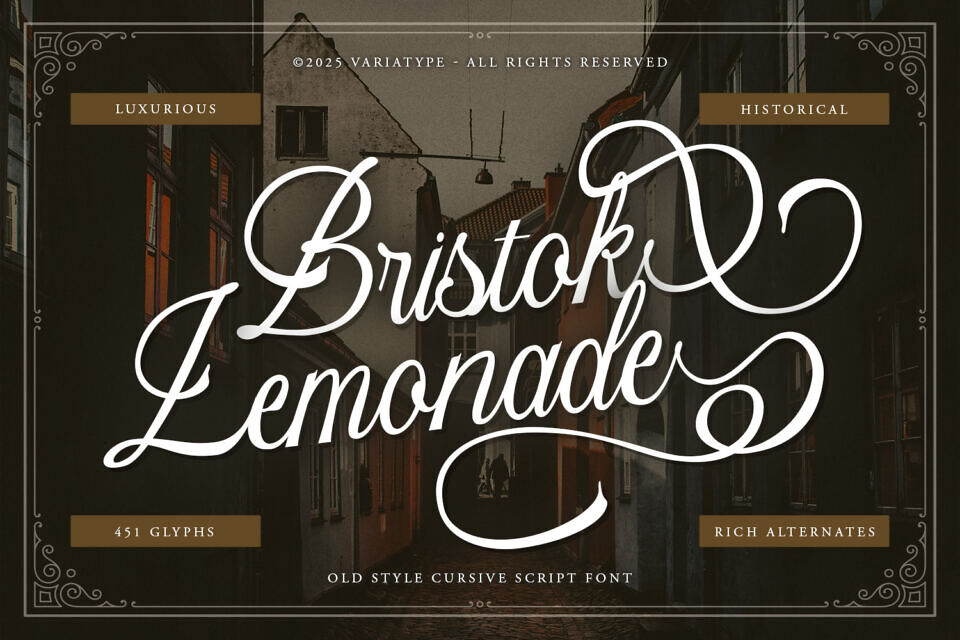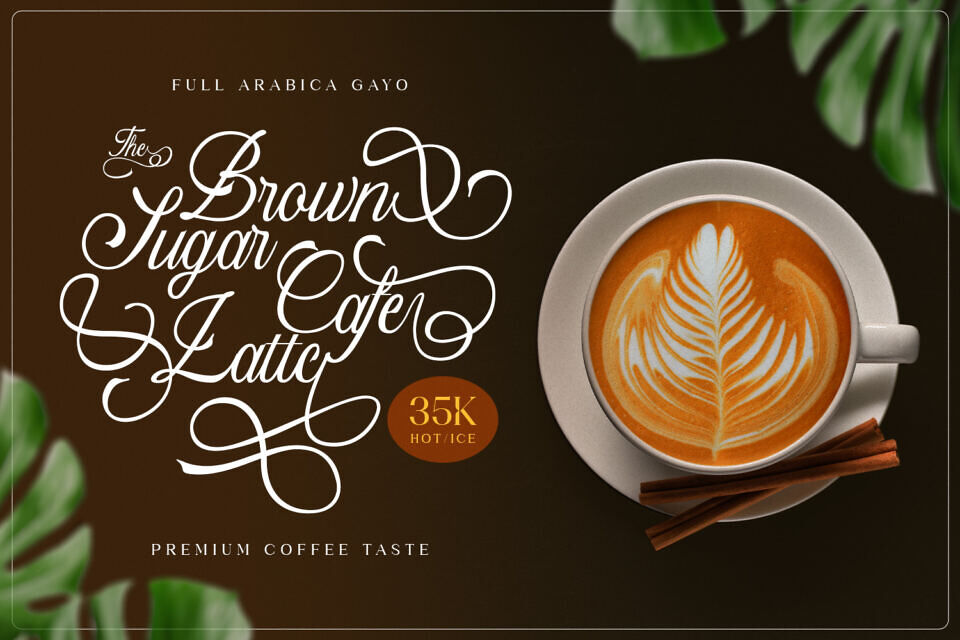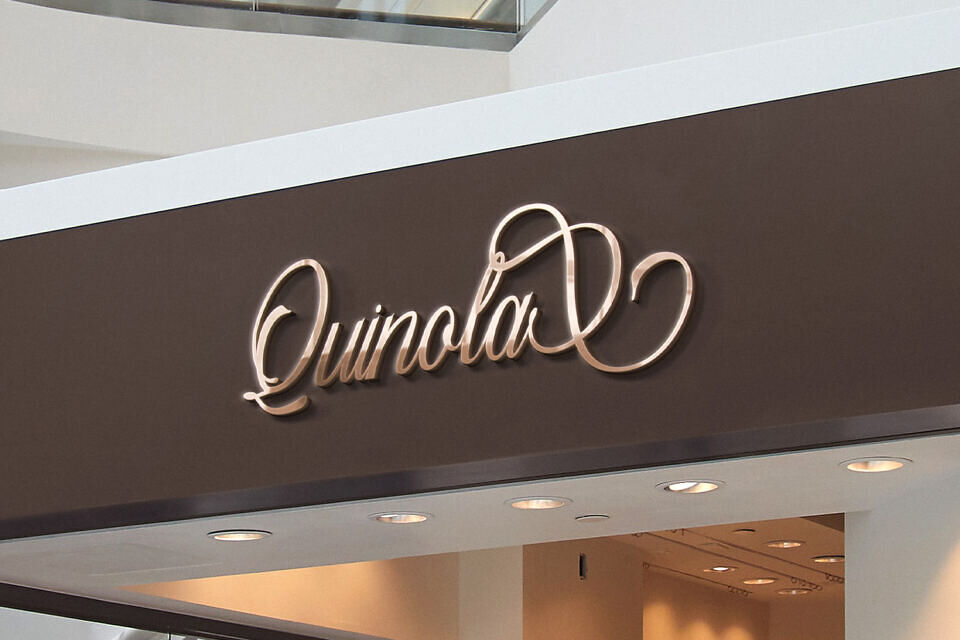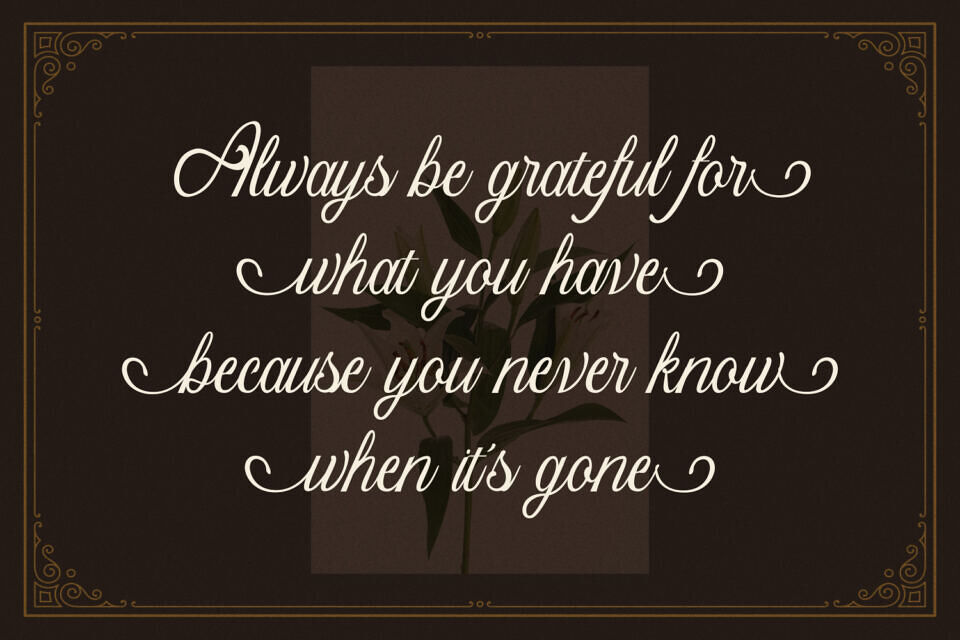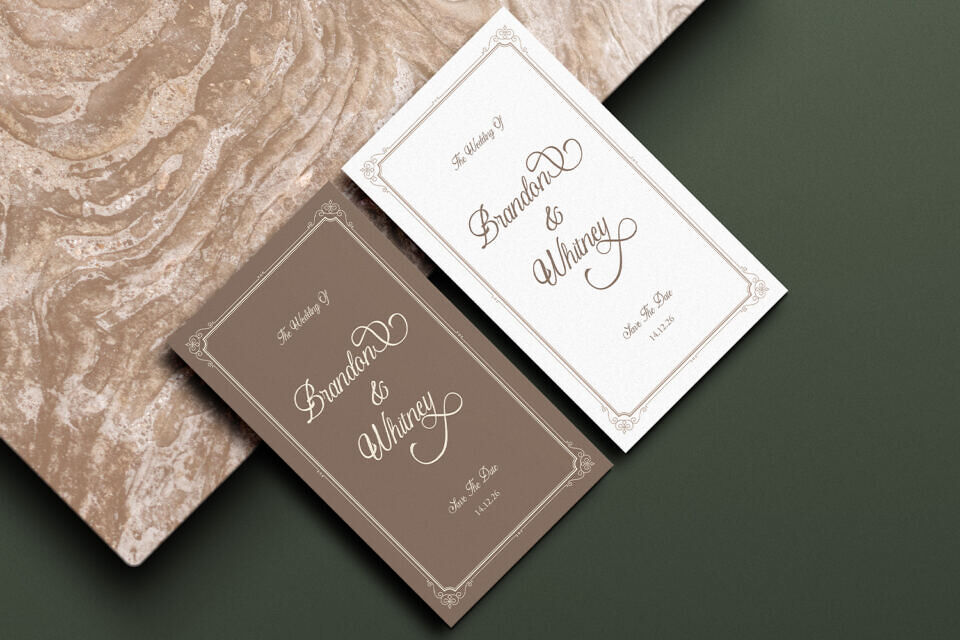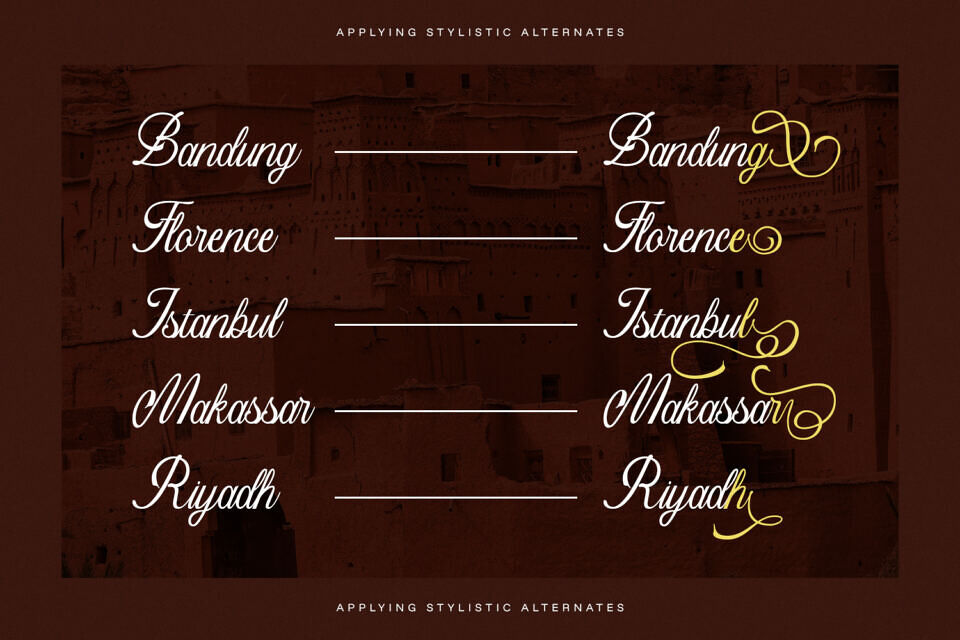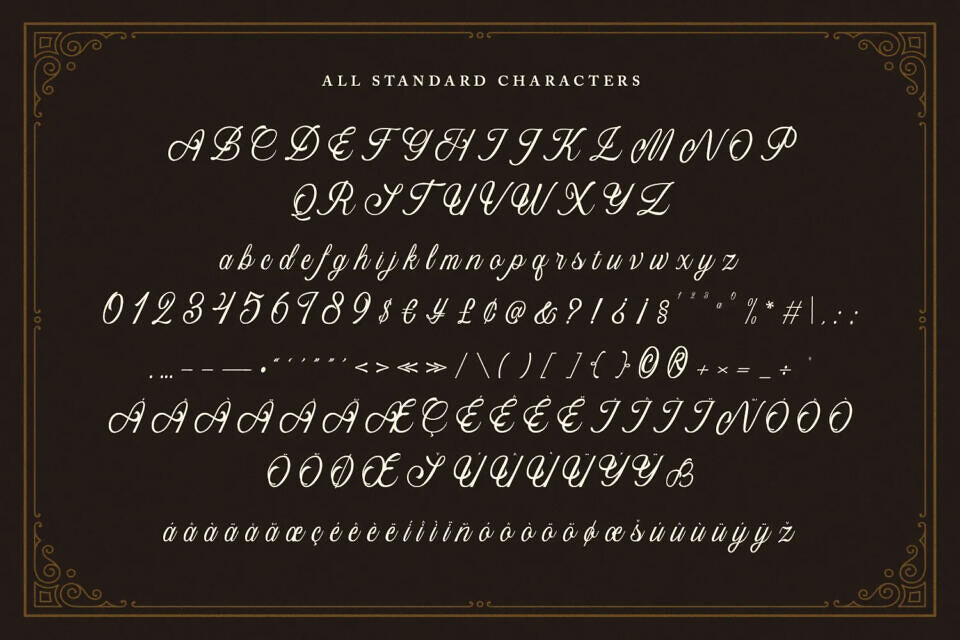
Bristok Lemonade Font
Bristok Lemonade is a luxurious old-style cursive script font crafted with graceful curves, historical charm, and richly detailed alternates that bring every word to life. Inspired by vintage lettering and timeless European streets, this typeface offers elegant letterforms and 451 meticulously drawn glyphs, giving designers endless creative possibilities.
Perfect for wedding invitations, boutique branding, packaging, book covers, and any project that needs a touch of romance and sophistication, Bristok Lemonade delivers a refined handwritten feel that stands out with both beauty and character.